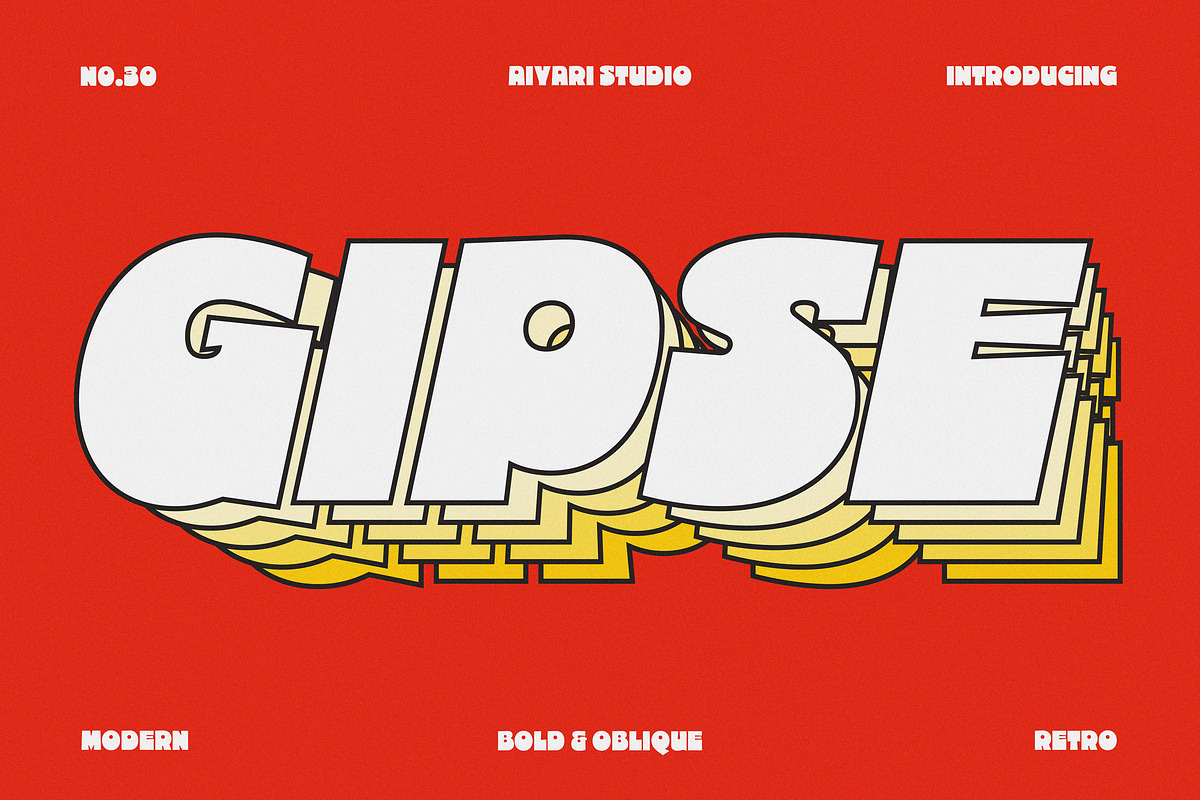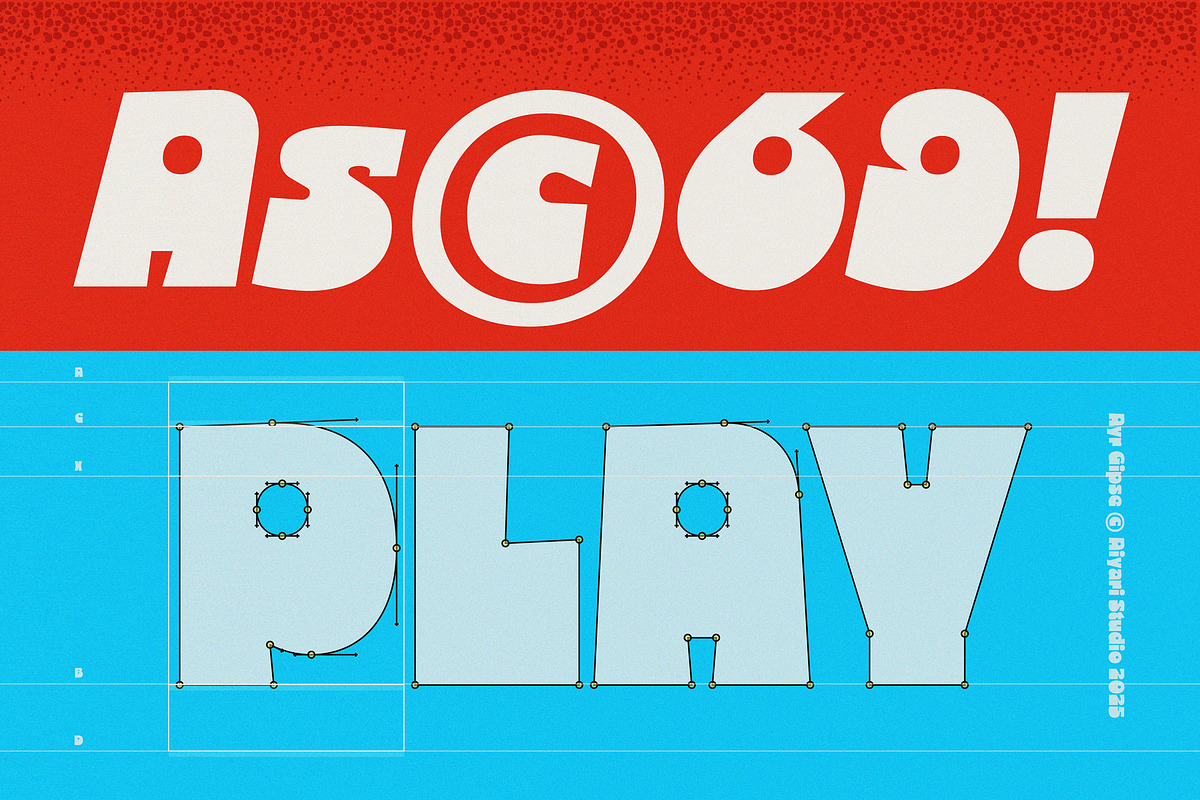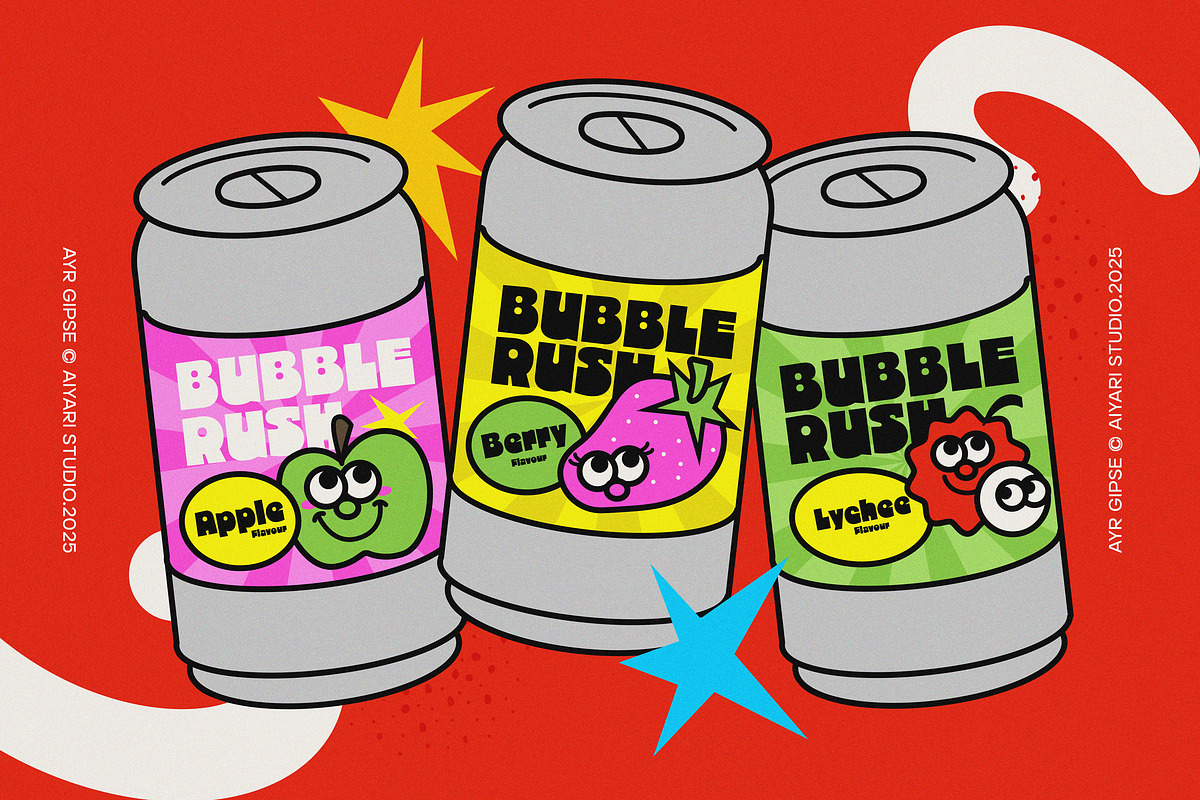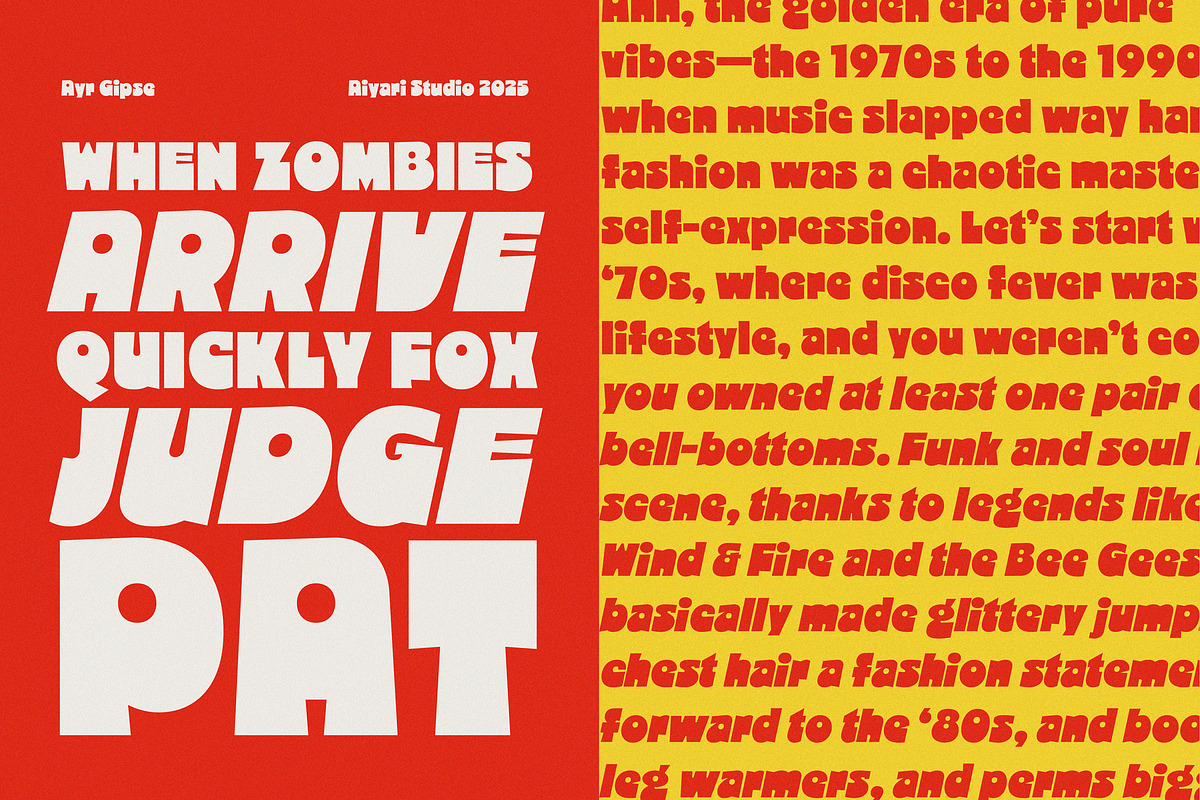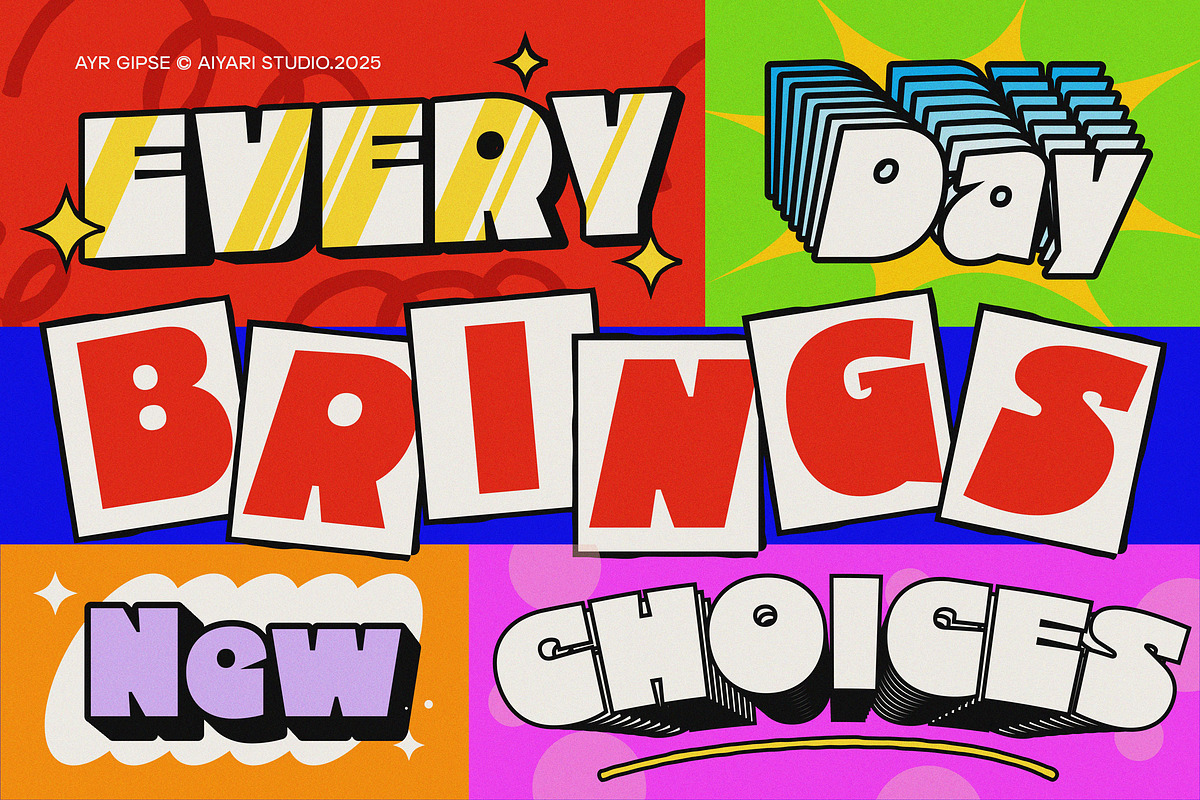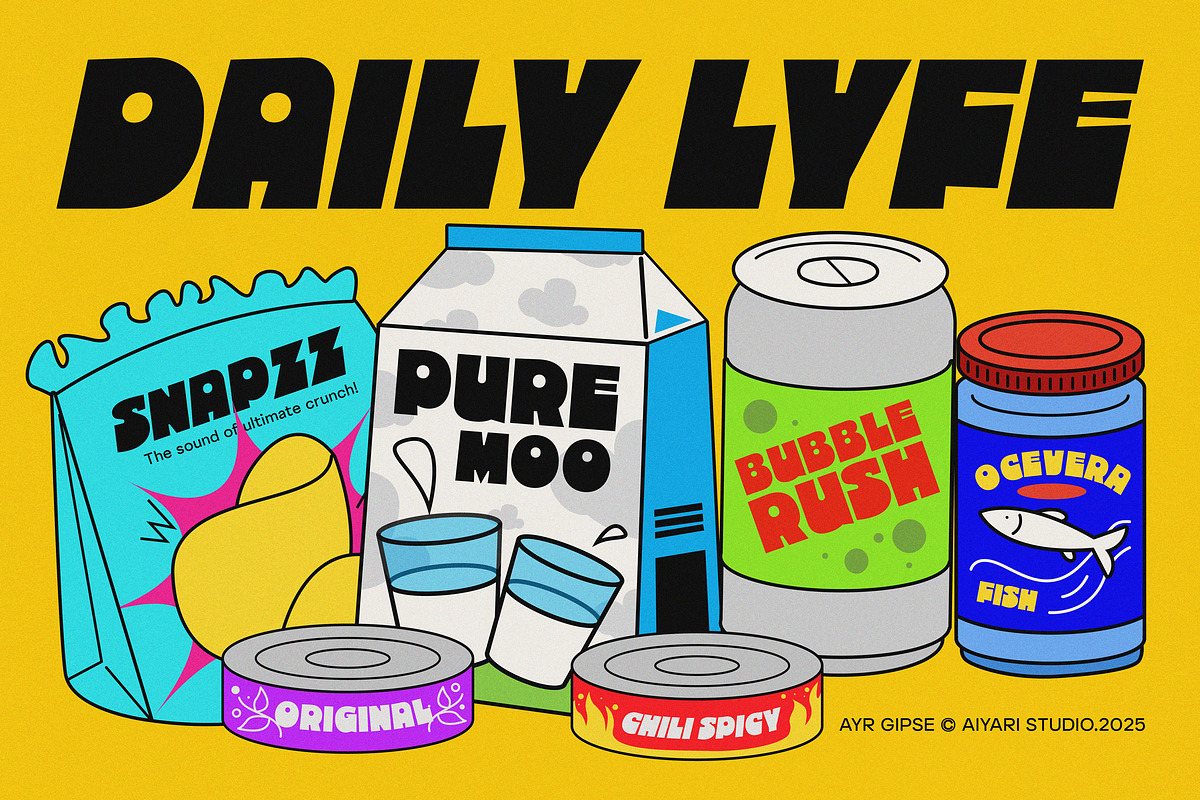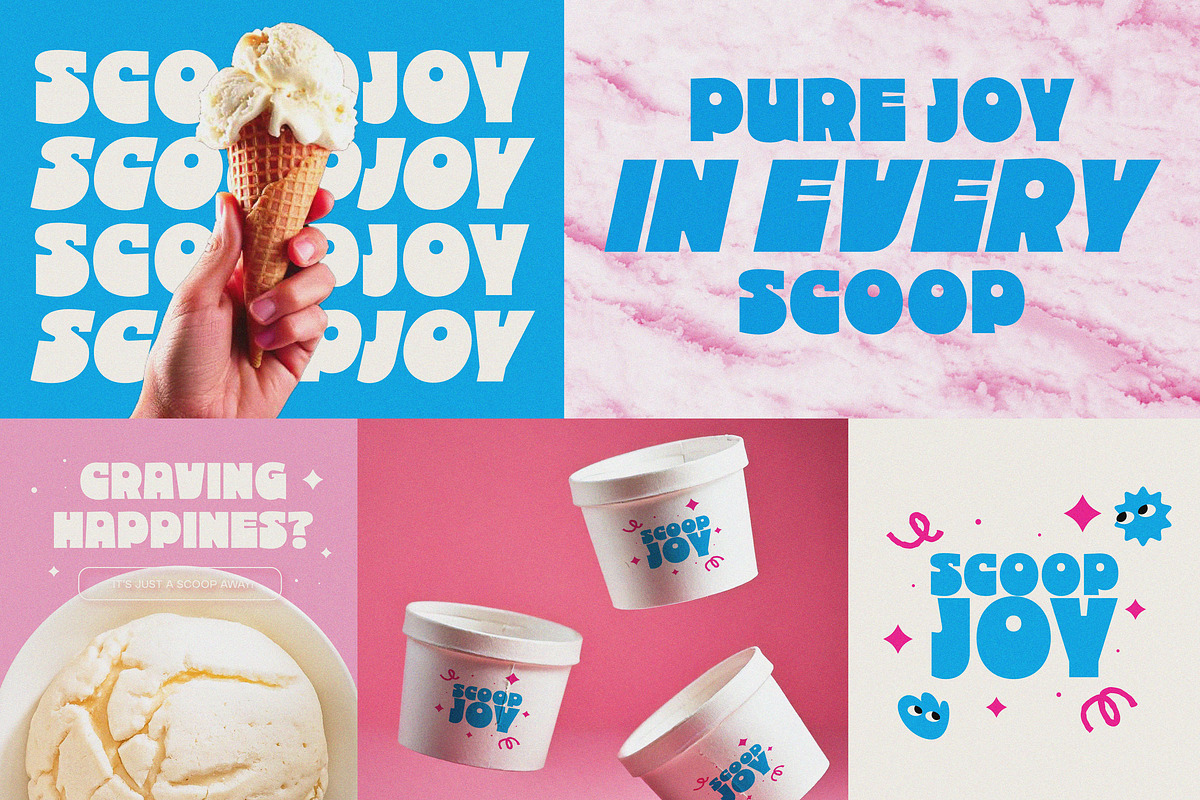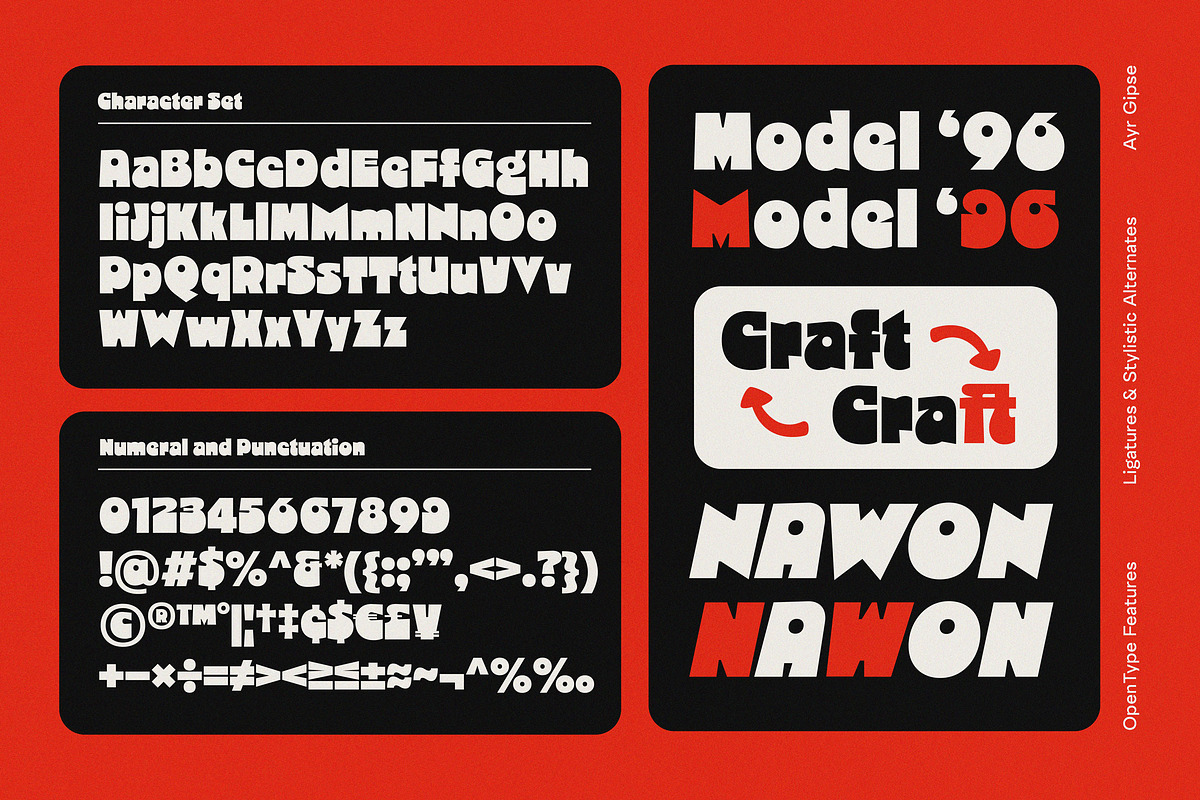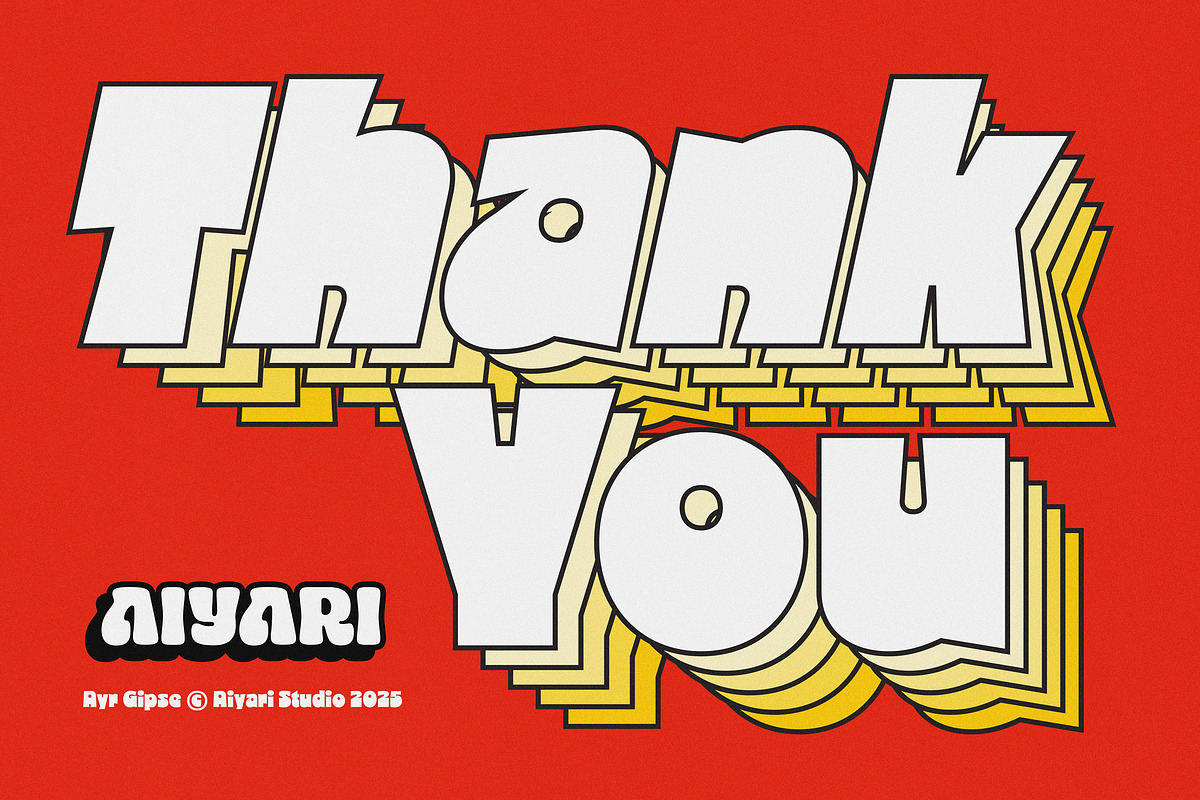
Gipse Font Family
Intorducing Gipse A bold, retro-inspired display typeface with chunky, geometric letterforms. that brings charm of 1930s vintage comic. The style is reminiscent of mid-century modern typography with exaggerated proportions, rounded counters, and a mix of sharp and soft angles. With thick strokes and irregular proportion Gipse ideal for eye-catching posters and logotype.
Also Gipse is perfect for bold headings, stylish invitations, unique logo designs, eye-catching quotes, trendy apparel, vibrant flyers, striking posters, elegant greeting cards, creative product packaging, captivating book covers, artistic printed quotes, standout album covers, and dynamic movie titles.